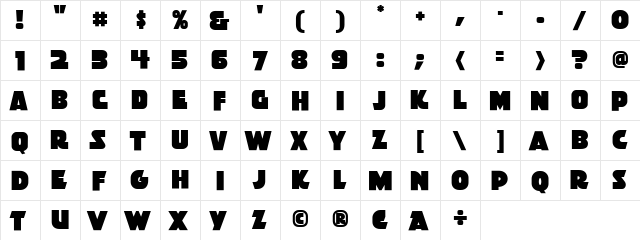
CCStormtrooper Medium
Design Context for CCStormtrooper Typeface
CCStormtrooper is a composed and adaptable typeface that performs quietly and consistently across a wide range of design contexts.